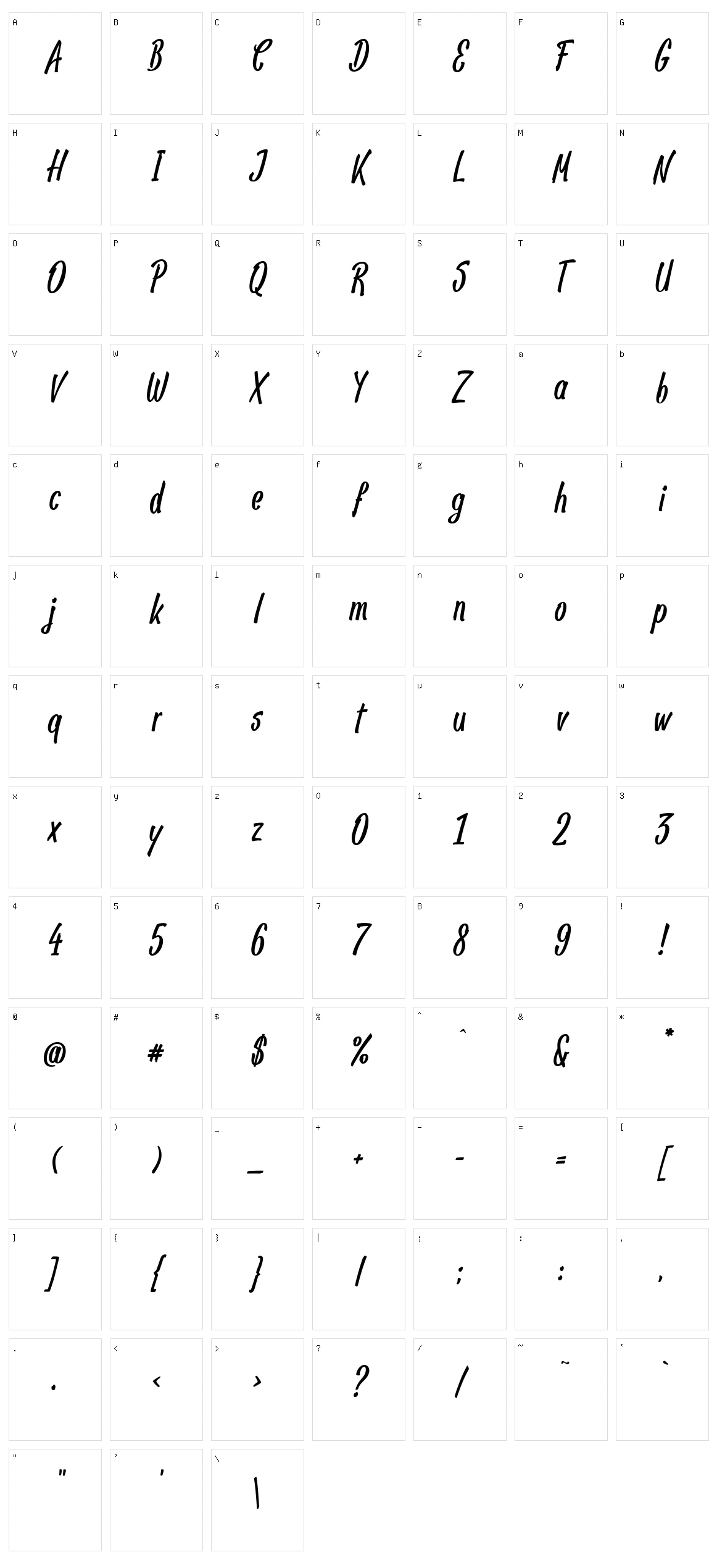
The free font Pan Pizza is carefully designed by Marc Lohner, showcasing a thoughtful balance of creativity and usability and falls under the Script font style. When you download the ZIP file, it contains only 377.19 KB of font files, making it lightweight and quick to download. Please review the license details below to understand permitted usage and distribution rights. If license information is not available, we recommend using this font for personal projects only or contacting the author directly for commercial usage permissions.